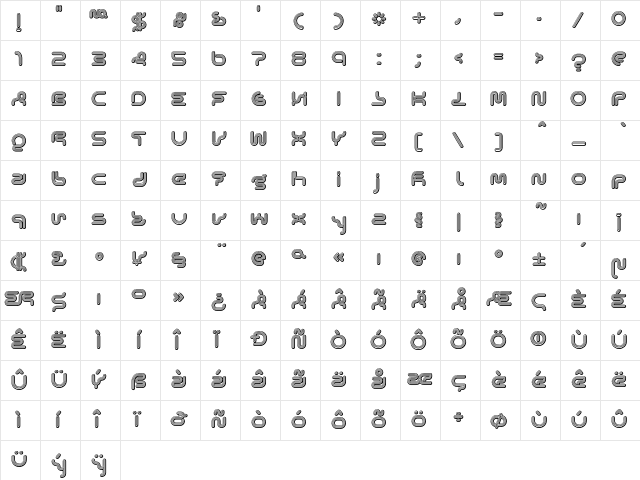
Lexigraph C
Design Context for Lexigraph Typeface
Lexigraph is a composed and adaptable typeface that performs quietly and consistently across a wide range of design contexts.